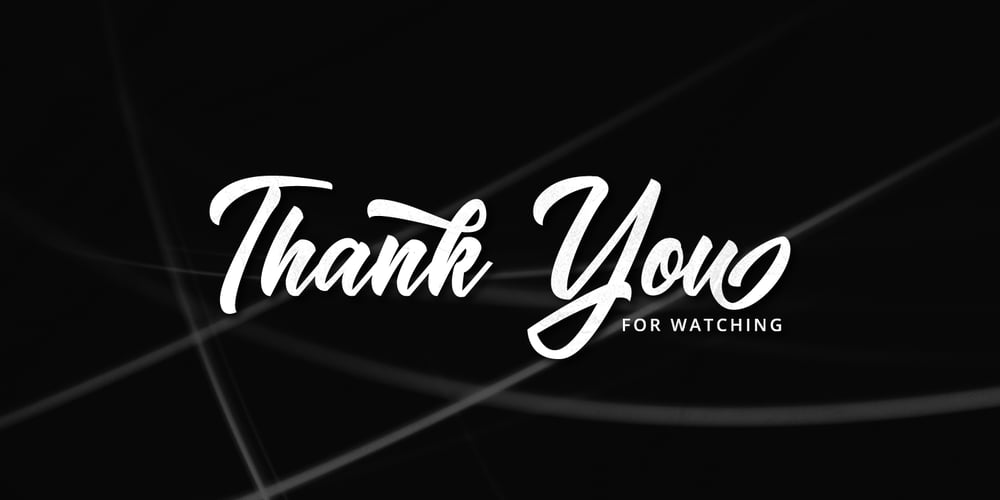
The Razels Font Family was designed by Ferdiansyah and published by ijemrockart. The Razels contains 1 styles and family package options. The Razels Font is a bold calligraphy script with dramatic moves and strong styles for your latest project that requires the look of a hand bulletin. This is perfect for branding projects, logos, wedding designs, social media posts, advertisements, product packaging, product design, labels, photography, watermarks, invitations, stationery, and any project that requires a handwriting style. The Razels Font comes with uppercase letters, lowercase letters, numbers, punctuation, and many variations of each character, including OpenType alternatives and general binders to allow you to customize the design.